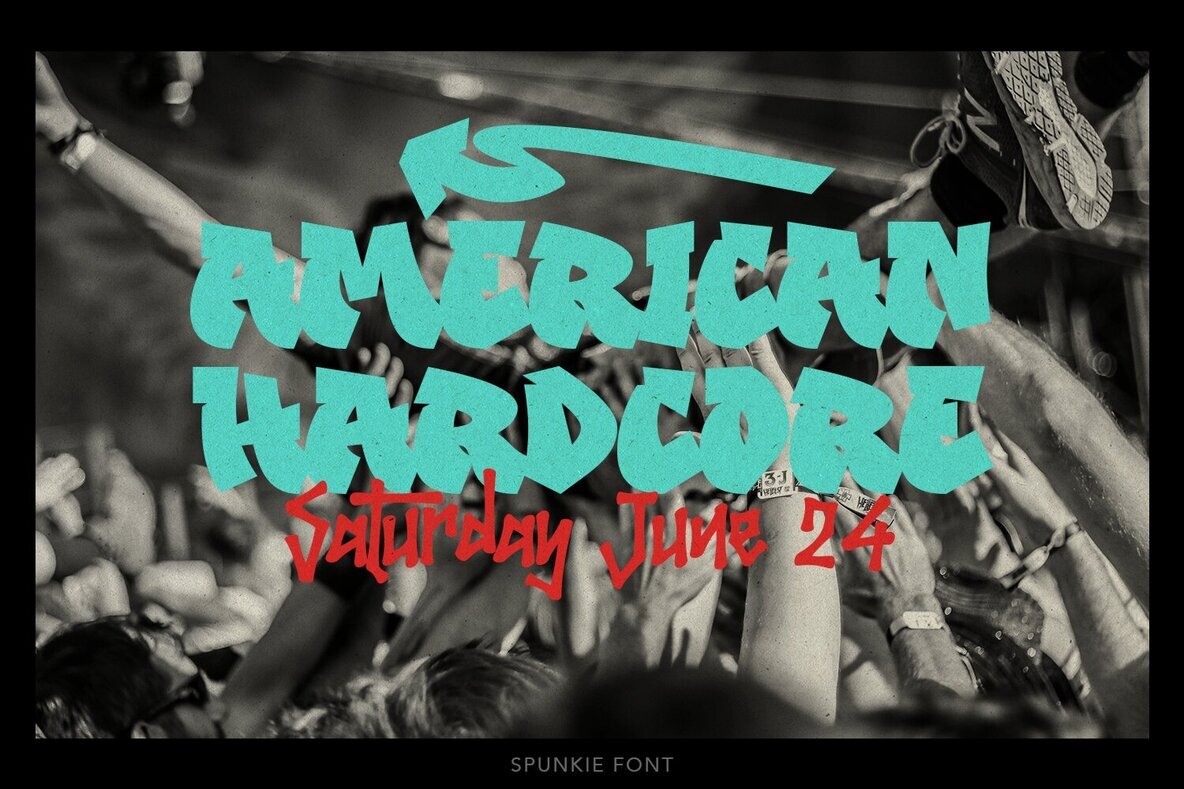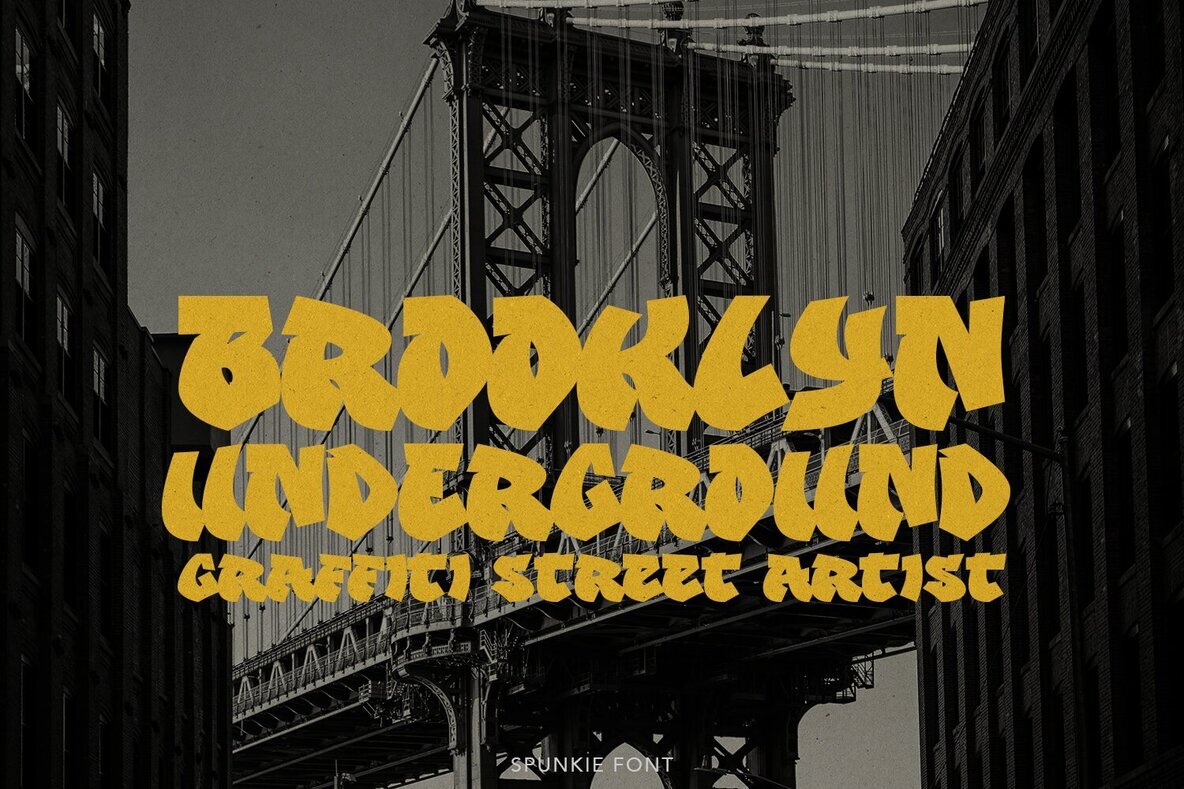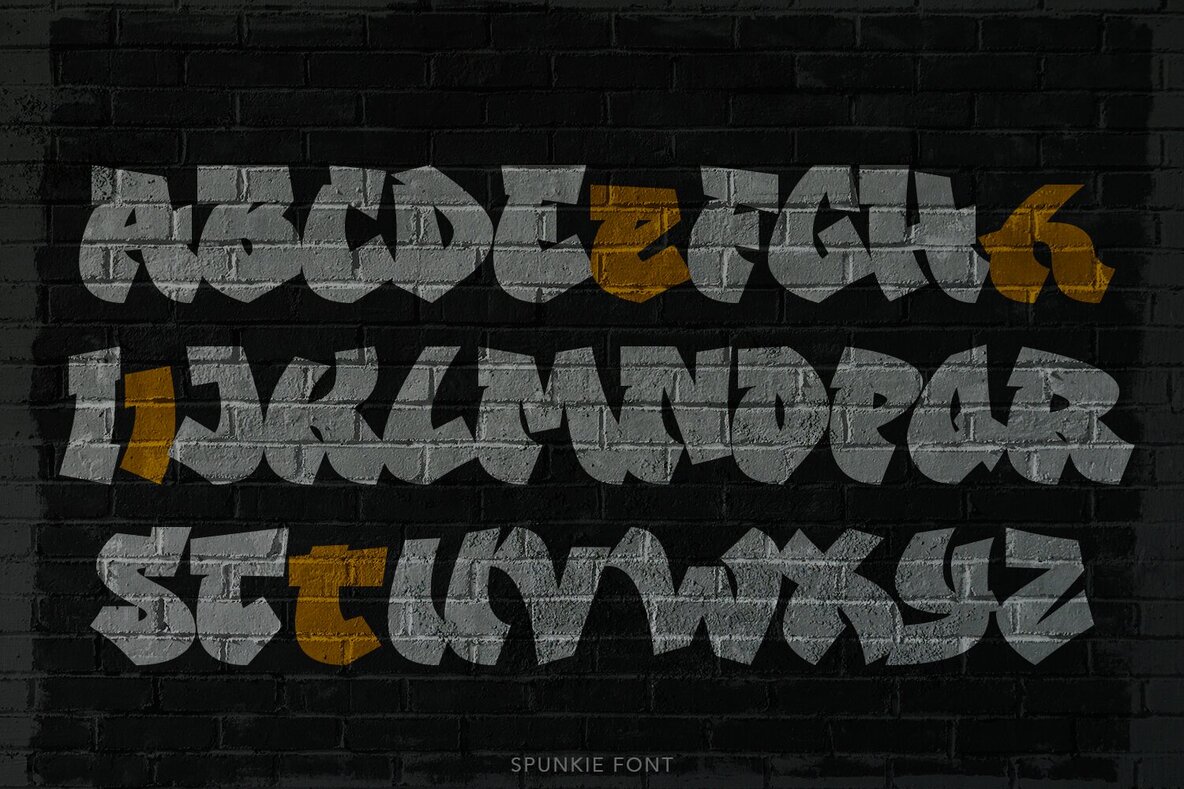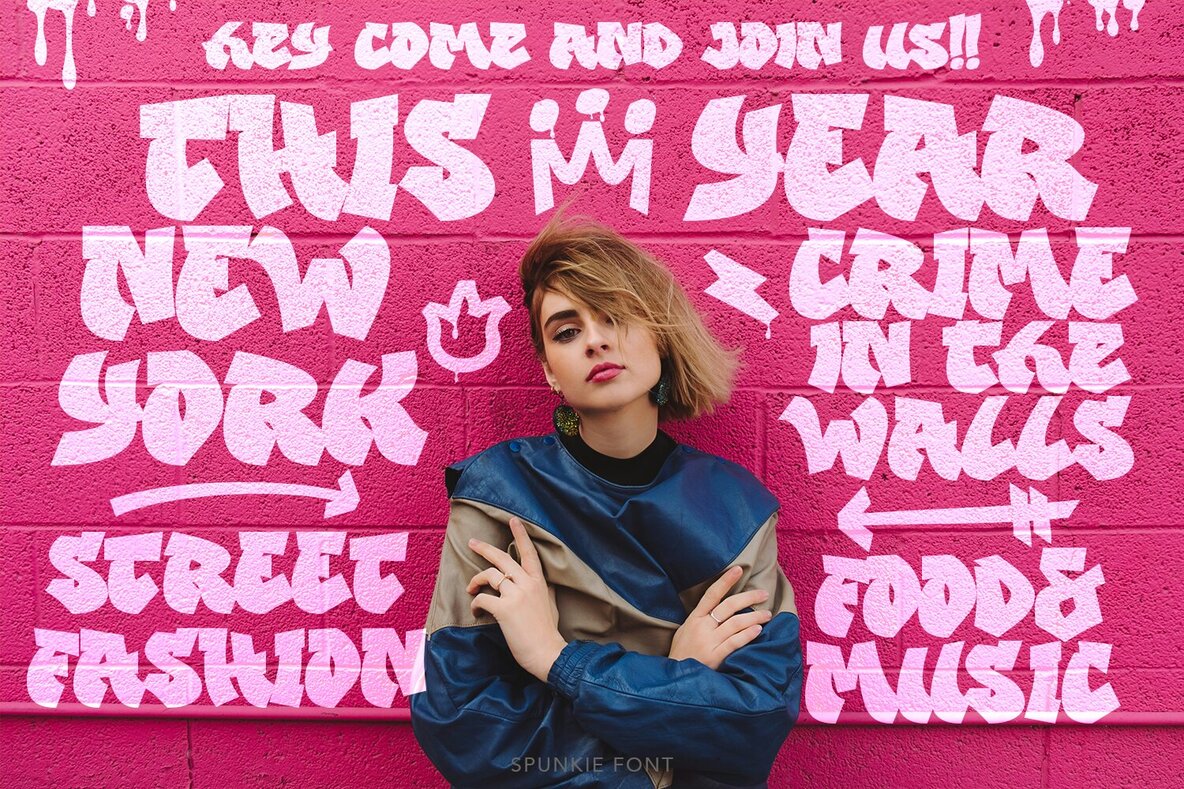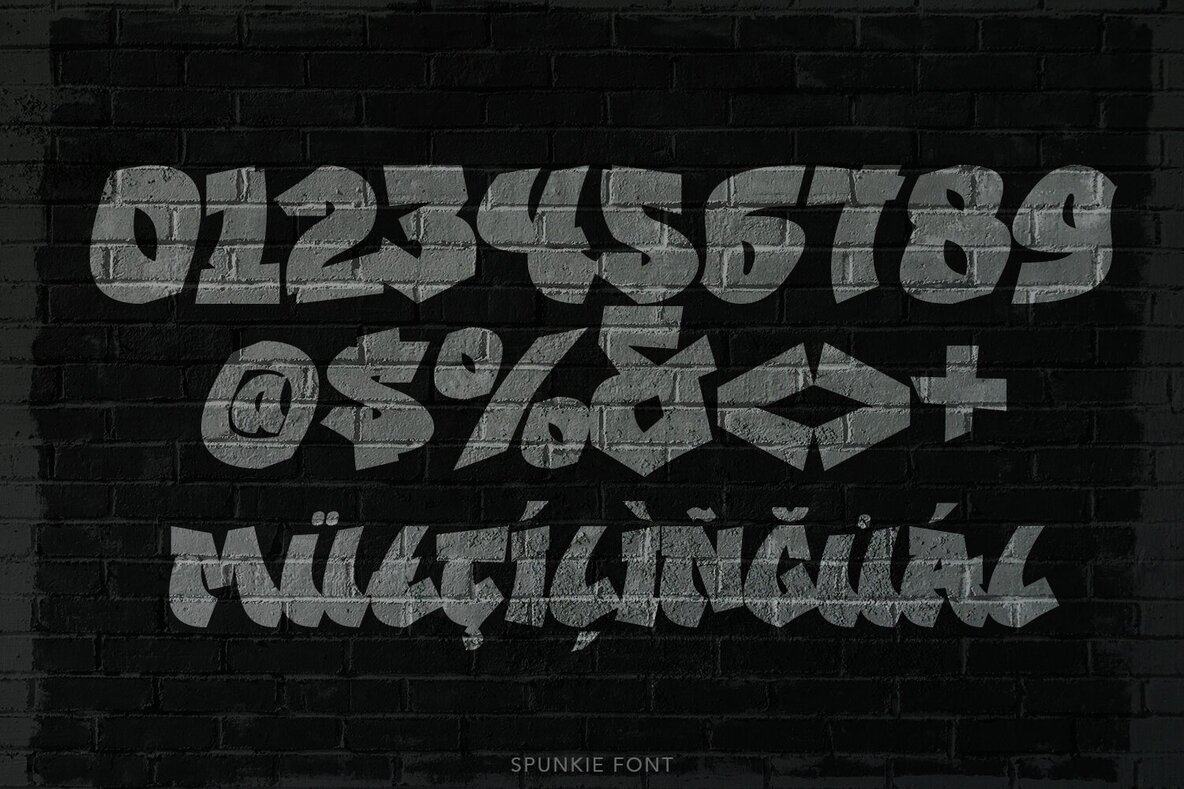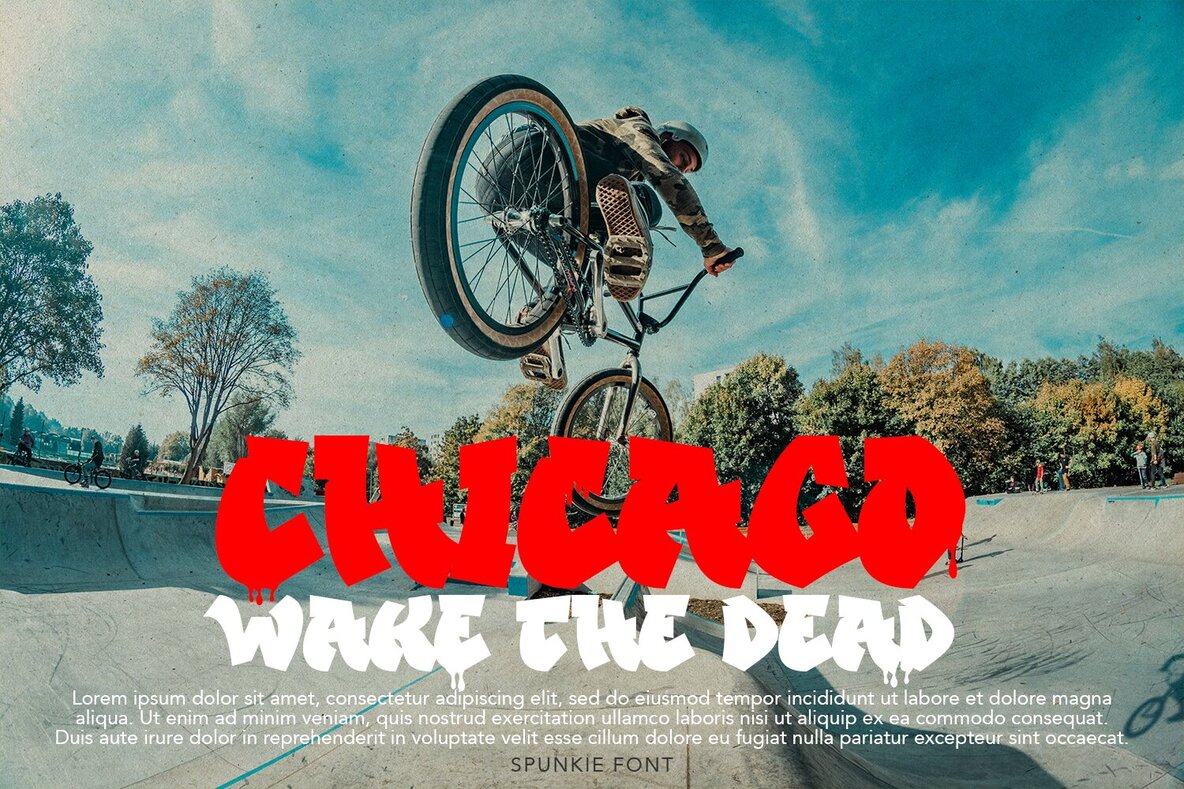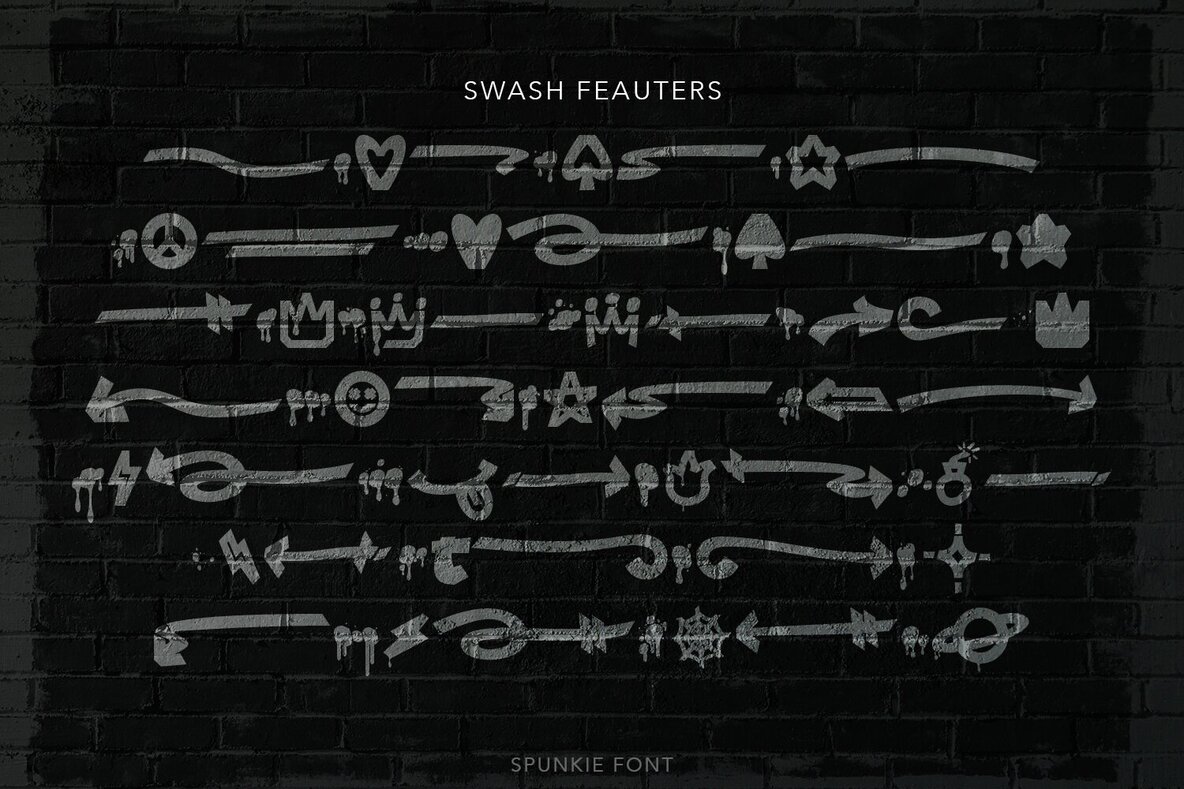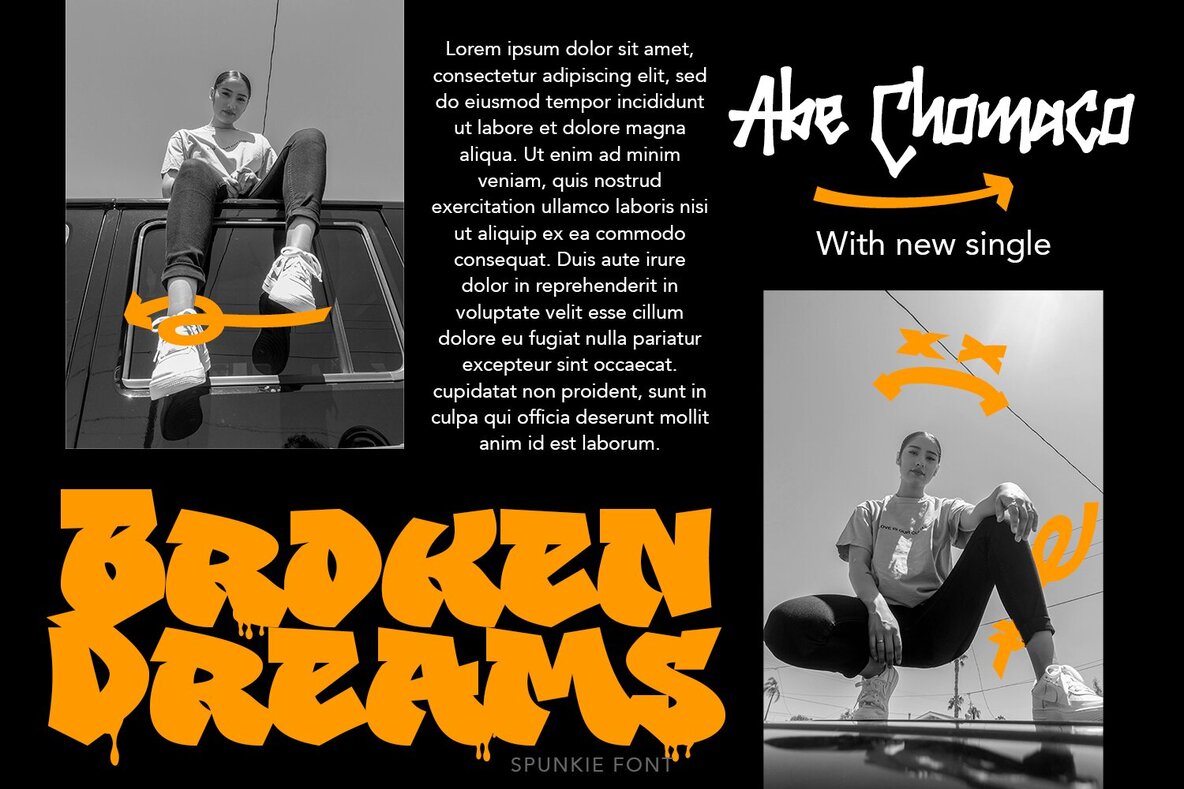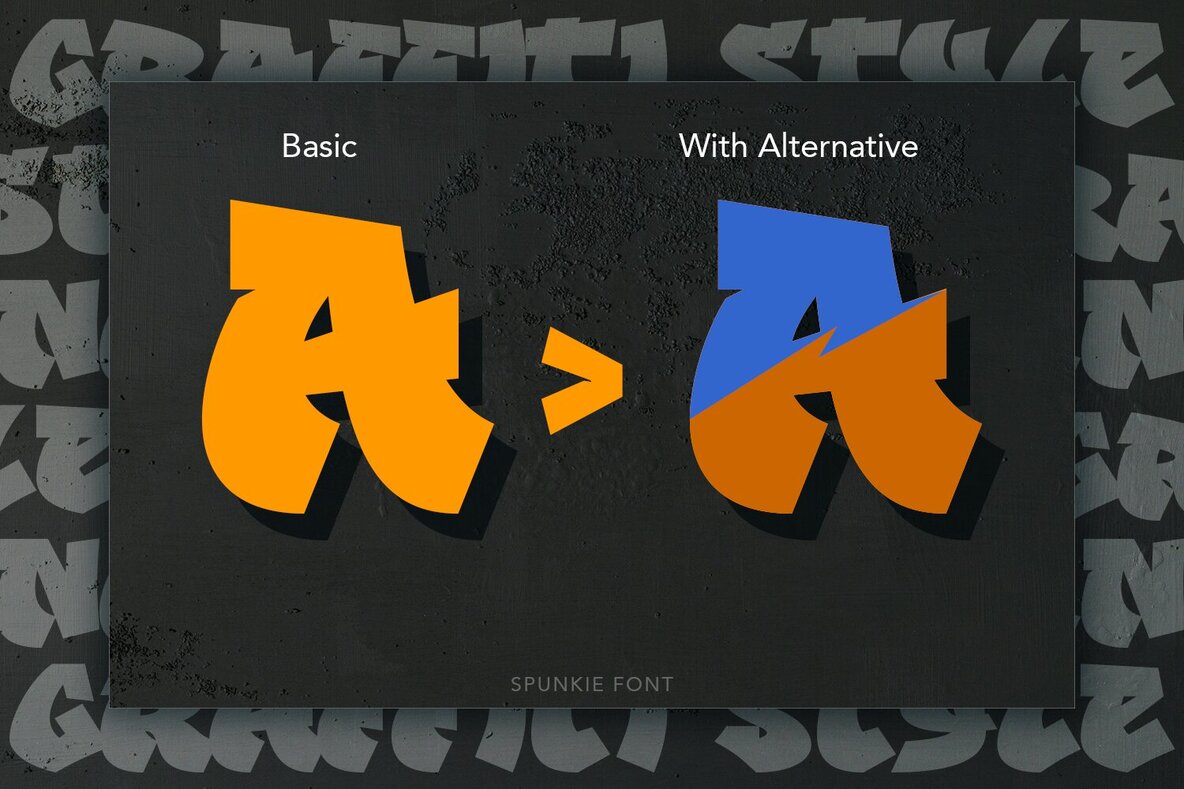
Spunkie Font
Spunkie Regular
Spunkie is a graffiti font inspired from 90s street hip hop style. Clear and unique you can explore and combine creating rhythm for comfortable reading. This font perfect for any projects, such logotype, stickers, packaging design, headlines, brand identity, t-shirt, posters, magazines, books, Instagram, websites, and many more.